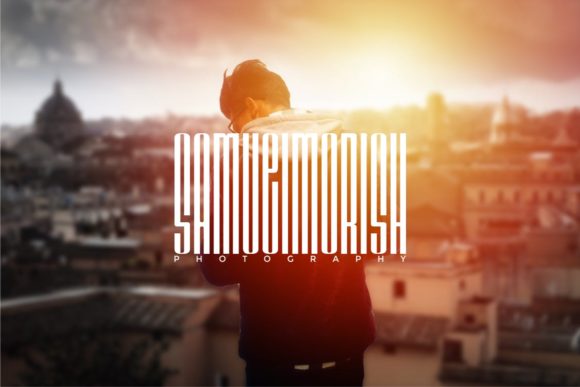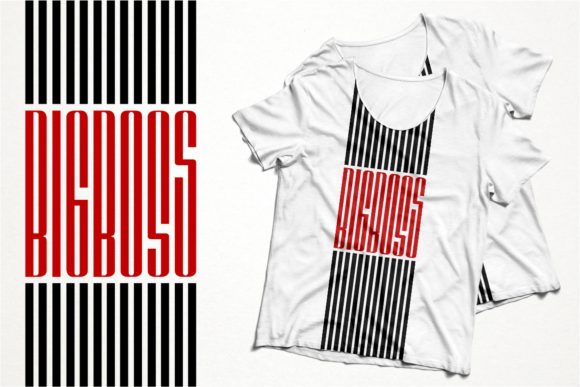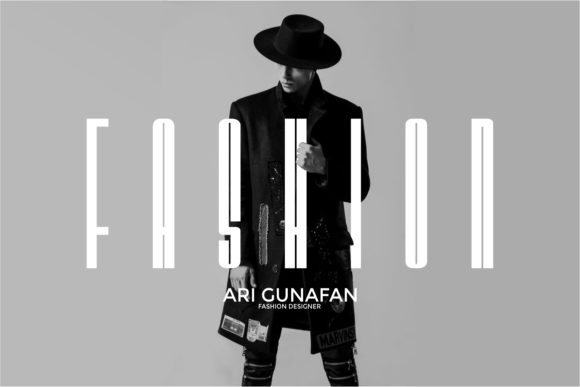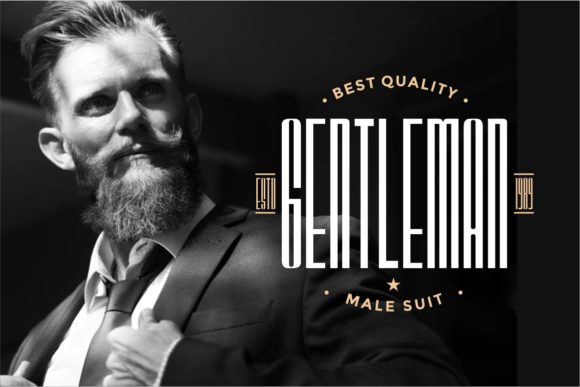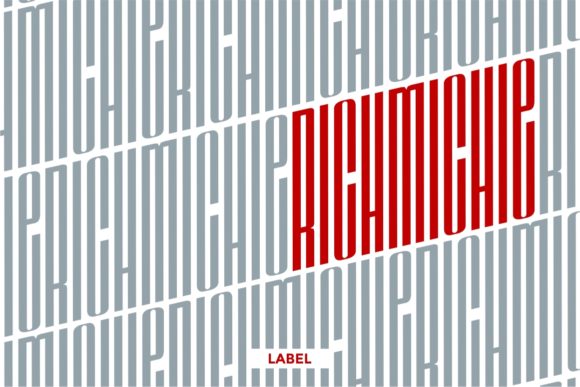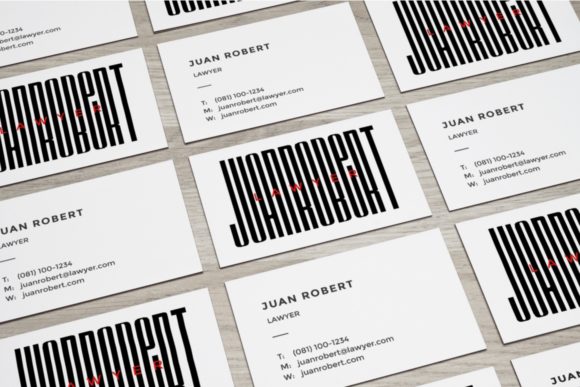
Introducing Barstrip Font: The Ultimate Ultra-Condensed Display Font
Are you a designer or crafter looking for a unique and eye-catching font to elevate your creative projects? Look no further than Barstrip Font, an ultra-condensed display font inspired by the neat and organized structure of bar-code symbols. With its sleek and modern design, Barstrip Font is perfect for adding a touch of sophistication to your logos, apparel, quotes, packaging, titles, posters, greeting cards, and more.
What is Barstrip Font?
Barstrip Font is a carefully crafted font that takes its inspiration from the humble bar-code symbol. By taking the essence of these symbols and transforming them into a typographic form, Barstrip Font offers a fresh and exciting way to add visual interest to your designs. The font comes in two styles: regular and bold, giving you the flexibility to experiment with different looks and create a unique visual identity for your brand or project.
Key Features of Barstrip Font
- Ultra-condensed design: Barstrip Font is designed to be highly condensed, making it perfect for creating eye-catching titles, headings, and labels that pack a punch.
- Inspired by bar-code symbols: The font’s unique design is inspired by the neat and organized structure of bar-code symbols, giving it a distinctive and modern look.
- Two styles: regular and bold: With two styles to choose from, you can experiment with different looks and create a unique visual identity for your brand or project.
- Perfect for a variety of applications: Barstrip Font is versatile and can be used for a wide range of applications, including logos, apparel, quotes, packaging, titles, posters, greeting cards, and more.
Why Choose Barstrip Font?
- Stand out from the crowd: With its unique and eye-catching design, Barstrip Font is sure to help your designs stand out from the crowd.
- Add a touch of sophistication: The font’s sleek and modern design adds a touch of sophistication to any project, making it perfect for brands and designers looking to elevate their visual identity.
- Versatile: The font’s versatility means it can be used for a wide range of applications, from logos and branding to packaging and marketing materials.
Tips and Tricks for Working with Barstrip Font
- Experiment with different sizes: Barstrip Font looks great in a variety of sizes, from small and subtle to large and bold.
- Play with color: The font’s sleek design looks great in a range of colors, from bright and bold to muted and pastel.
- Use it sparingly: Because of its bold and eye-catching design, Barstrip Font is best used sparingly to add emphasis and visual interest to your designs.